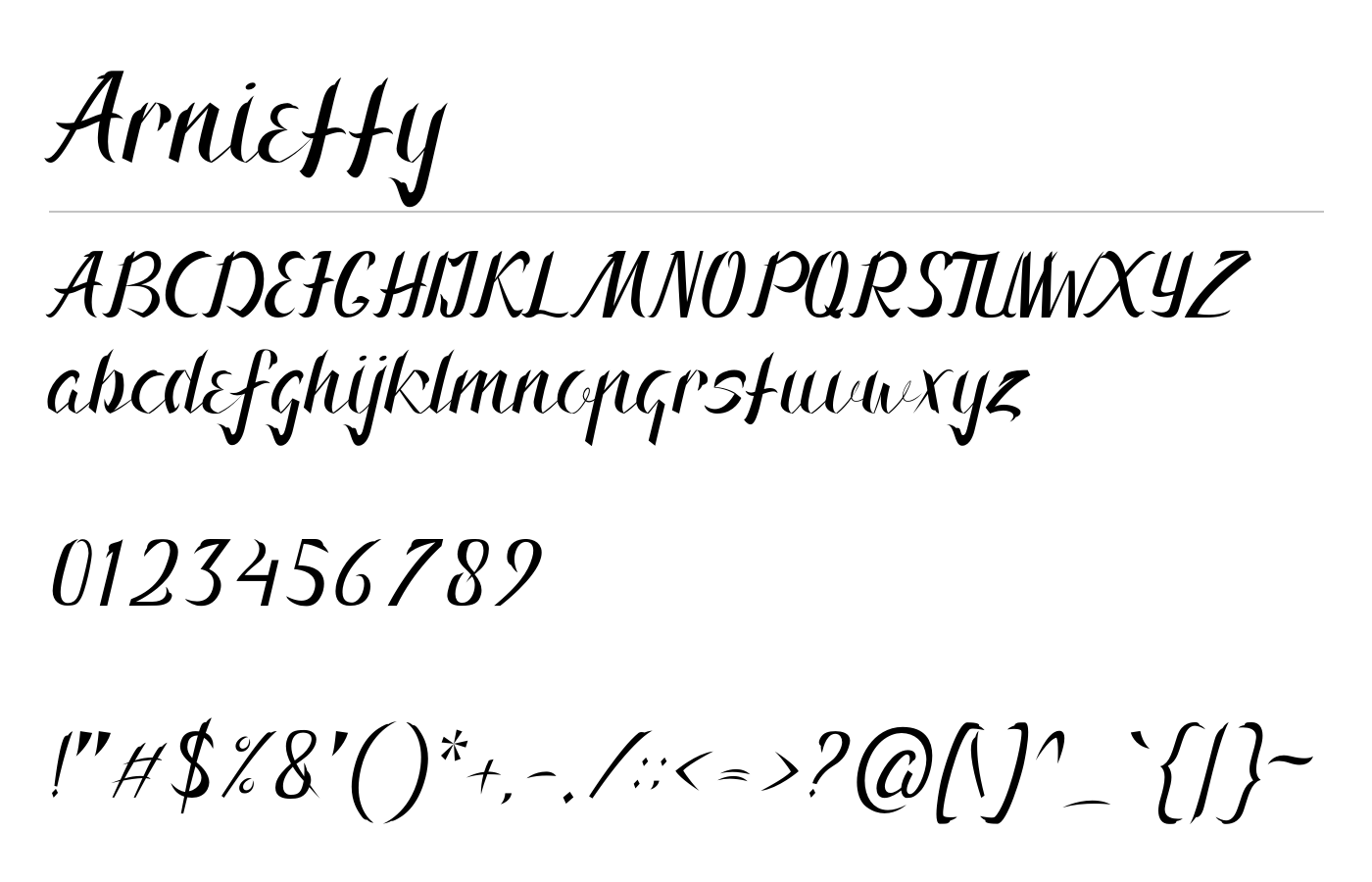
Arnietty is an elegant script font with a graceful, calligraphic style featuring moderate stroke contrast and slightly condensed letterforms. Its flowing, angled characters convey a sophisticated yet approachable feel, making it ideal for luxurious branding, invitations, or editorial headlines where expressive, refined typography is desired. This font’s unique letter shapes and smooth curves add personality while maintaining readability.
Arnietty Font
About Arnietty Font